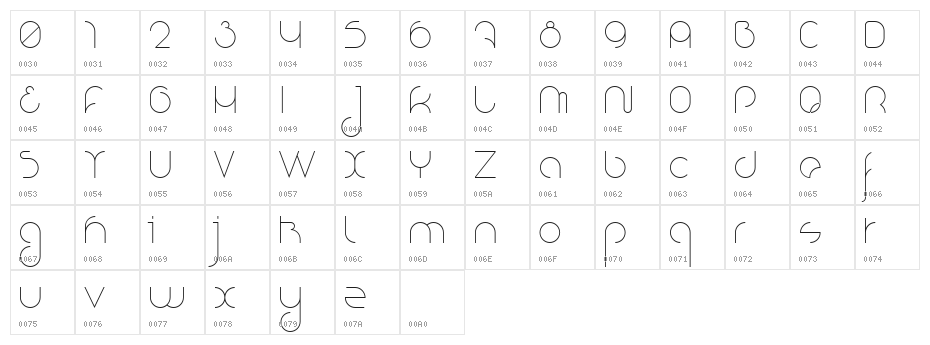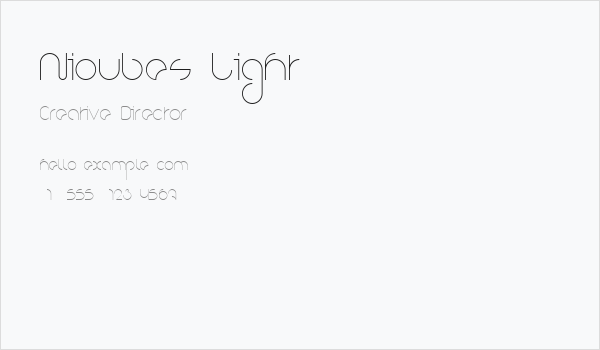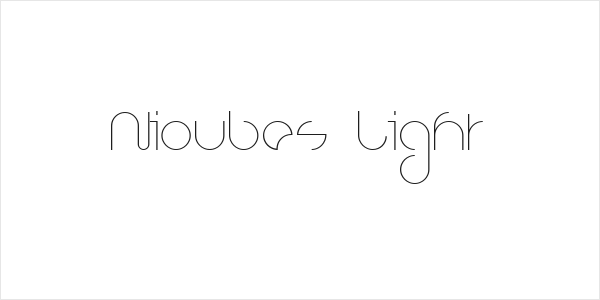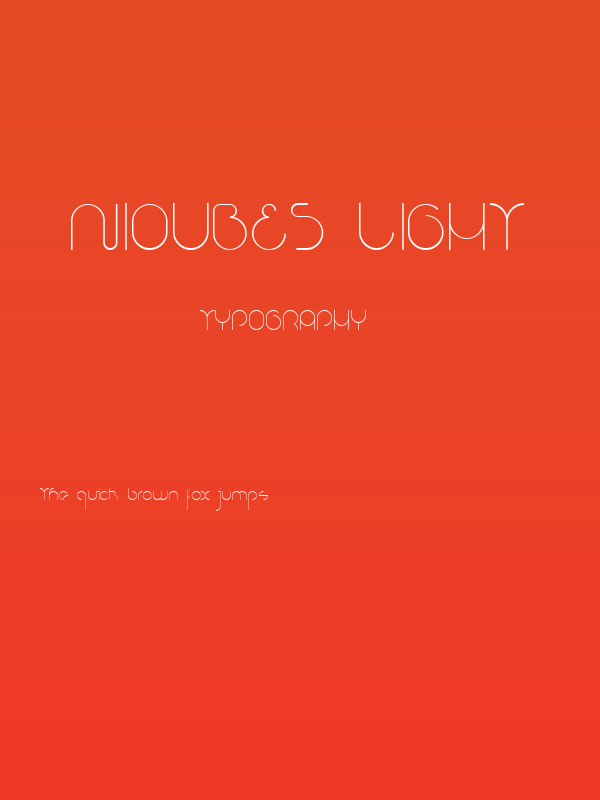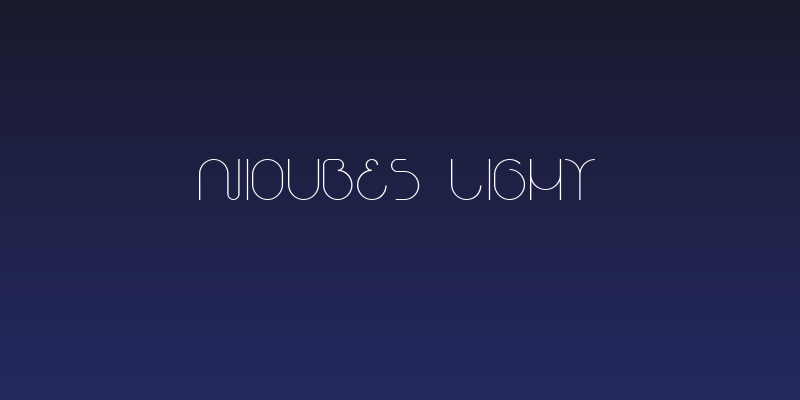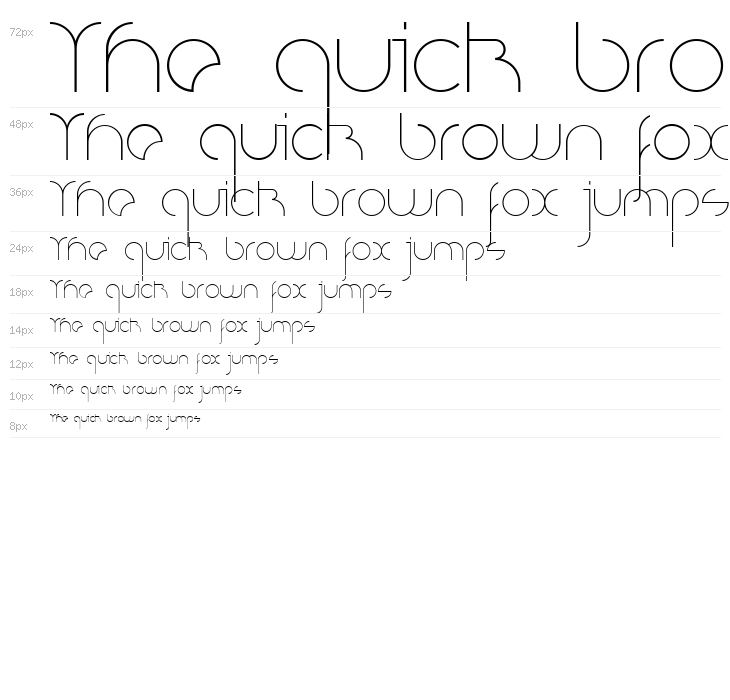
Nioubes Light Font
Nioubes Light Description
This font features a sleek, modern design with a geometric and minimalist aesthetic. The characters are composed of thin, uniform lines with rounded edges, giving it a futuristic and clean appearance. The uppercase and lowercase letters maintain a consistent style, with unique, artistic curves and angles that add a distinctive flair. The numerals and special characters follow the same design principles, ensuring a cohesive look across all elements. This font is ideal for projects that require a contemporary and stylish touch.
| Use Case | Logos, Headlines, Branding |
| Proposed Projects | Ideal for branding, logos, modern web design, and editorial layouts. |